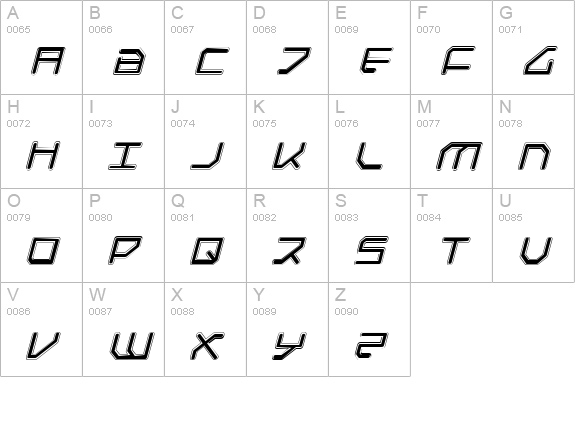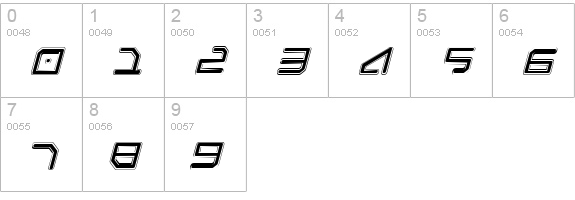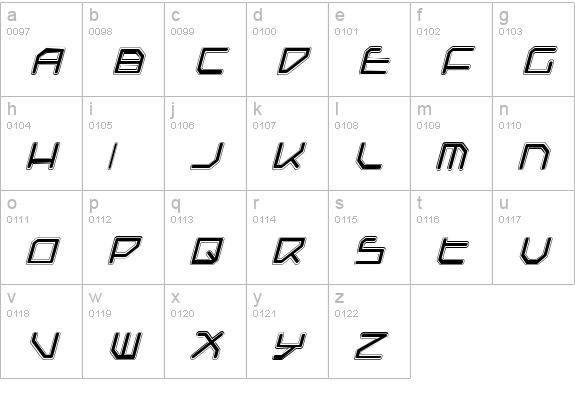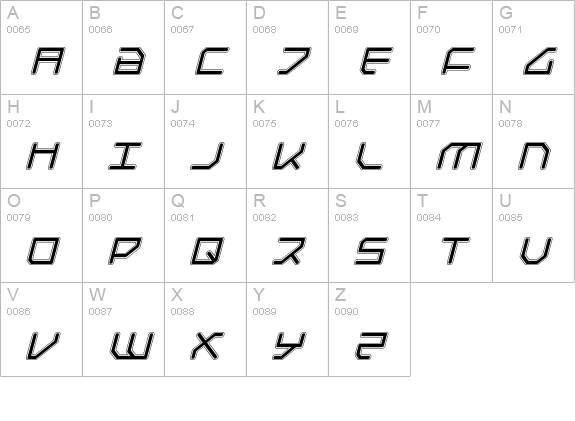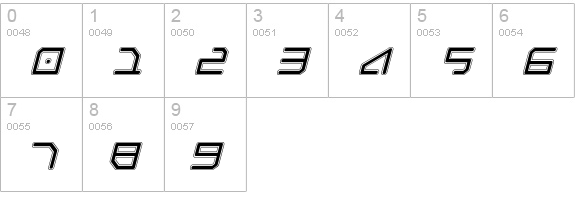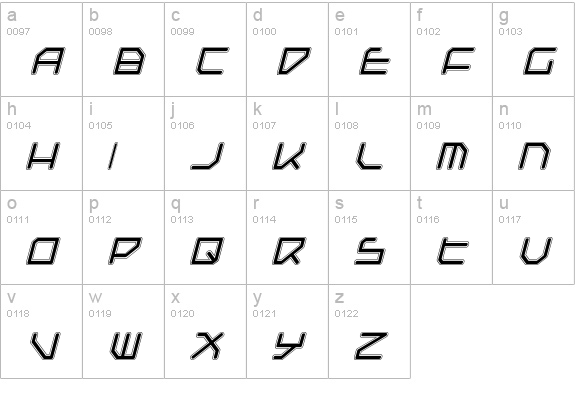
Federapolis College Italic is a distinctive, italic variant in the Federapolis typeface family \xE2\x80\x94 well suited to design and typography projects.
Federapolis College Italic font exudes a sense of elegance and sophistication, perfect for adding a touch of class to any project. Its sleek and stylish design makes it ideal for use in various applications, from formal invitations to branding materials. The italicized letters create a sense of movement and flow, adding a dynamic element to your text. What's more, this exquisite font is available for free download at FontsMarket.com, making it easily accessible to all designers and creatives looking to elevate their work with a touch of refinement. Whether you're crafting a wedding invitation or designing a logo, Federapolis College Italic font is sure to impress with its timeless appeal and versatility. Upgrade your typography game today with this exceptional typeface.